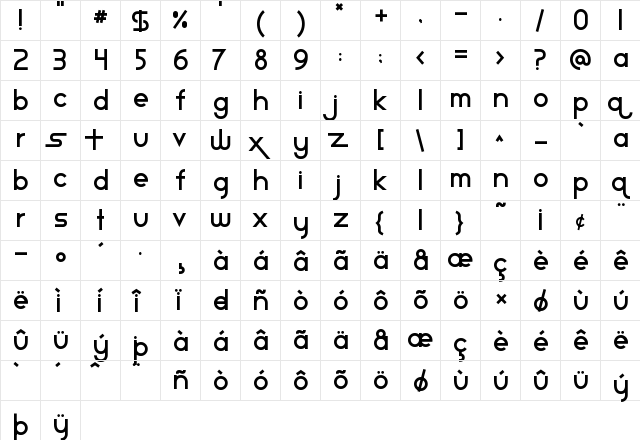
Star Avenue Regular
Design Context for Star Avenue Typeface
Star Avenue offers clean, dependable letterforms without strong stylistic allegiance, making it a practical choice for designers who need flexibility.
Pro Tip: Pair Star Avenue with a font of contrasting weight or personality to build a more expressive typographic hierarchy.